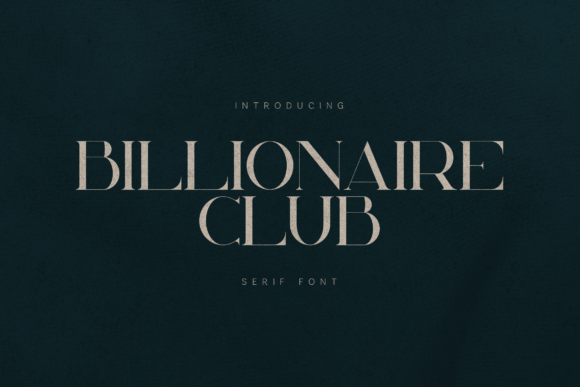
Introduction to Billionaire Club Font
Billionaire Club is a refined luxury serif font designed for high-end branding, editorial design, and sophisticated visual identities.
Inspired by classic typography with a modern edge, it delivers elegance, confidence, and timeless character in every letterform With sharp contrasts, graceful curves, and balanced proportions, Billionaire Club is perfect for fashion brands, magazines, logos, luxury packaging, wedding designs, and premium editorial layouts.